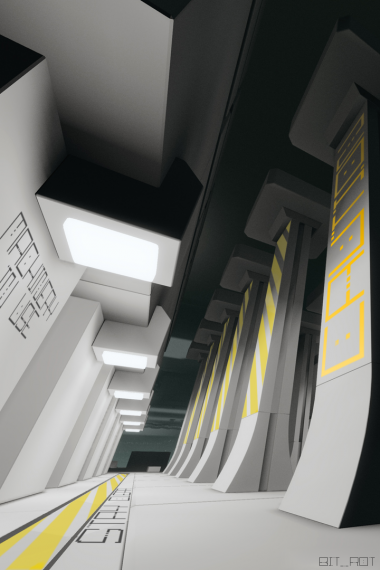
Here's an example of the font used in an industrial-esque setting.
Couple of quick examples of how the font looks when writing out a few simple phrases.
(Yes, I know I goofed on the 3. It's been fixed for the final version)